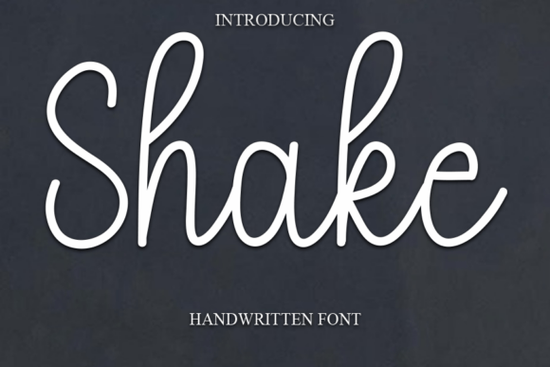
If you're looking for a handwritten script that feels both elegant and approachable, the Shake Font might be exactly what your next project needs. With its soft curves and gentle flow, Shake brings a romantic, joyful vibe to everything from wedding invitations to branding mockups without feeling overly formal or stiff.
Handwritten fonts like Shake work especially well when you want your design to feel personal and warm. Unlike rigid sans-serifs or traditional serifs, cursive scripts mimic real penmanship, which instantly adds character and emotion. Shake strikes a nice balance: it’s fancy enough for special occasions but relaxed enough for everyday use think boutique packaging, social media quotes, or even custom apparel.
What kinds of projects is Shake Font best for?
Because of its sweet, flowing style, Shake shines in contexts where warmth and personality matter most:
- Wedding stationery – Invitations, place cards, and thank-you notes all benefit from its romantic flair.
- Branding and logos – Ideal for bakeries, florists, boutiques, or any small business wanting a friendly yet polished identity.
- Greeting cards and gift tags – Adds a handmade touch even when printed digitally.
- Fashion and lookbooks – Pairs beautifully with soft photography and minimalist layouts.
- Print-on-demand products – Mugs, tote bags, and wall art featuring motivational quotes or names look effortlessly stylish.
If you’ve used other casual scripts like Sweet Casual or Handwriting Font, you’ll find Shake fits right in but with its own distinctive rhythm and charm.
How does Shake compare to other cursive fonts?
Not all script fonts are created equal. Some lean too formal (great for luxury brands, less so for cozy cafes), while others feel too playful for professional use. Shake lands in that sweet spot: legible, graceful, and versatile.
For example, if you’re designing a wedding suite, you might also consider Elegant Wedding Font for headers but Shake could handle the body text or RSVP details with more relaxed elegance. Or if you’re creating kids’ activity sheets, Curvsive Tracing offers guided strokes, whereas Shake gives you finished, fluid letterforms perfect for display use.
And if you love pairing fonts, Shake works well alongside clean sans-serifs or even a complementary script like Beetle Duo for contrast in headlines and subheads.
Tips for using Shake Font effectively
To get the most out of Shake without overwhelming your layout:
- Avoid long paragraphs. Like most scripts, Shake is best used for short phrases, names, or accent text not blocks of copy.
- Check spacing. Some letters may connect tightly; test your specific words to ensure readability.
- Use sparingly in logos. It can be part of a wordmark, but pair it with simpler elements if clarity is key (like for a shop sign).
- Consider context. On a delicate watercolor background? Perfect. Over a busy pattern? Maybe not.
Who should try Shake Font?
This font is especially useful for:
- Small business owners crafting their brand voice through packaging or social graphics.
- Print-on-demand sellers creating personalized gifts or quote-based merchandise.
- DIY crafters making vinyl decals, embroidery patterns, or scrapbook titles.
- Graphic designers looking for an authentic handwritten feel without hiring an illustrator.
If your work leans toward heartfelt, feminine, or artisanal aesthetics, Shake adds sincerity without sacrificing style.
- ✅ Confirm your project calls for a soft, romantic, or joyful tone.
- ✅ Test readability with your specific words (avoid tricky letter combos if needed).
- ✅ Pair it with a simple sans-serif for balance.